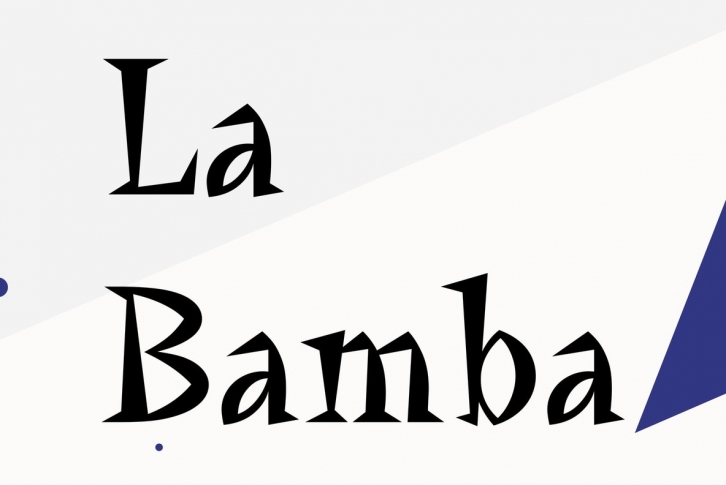
Current popular interest in 1750's design styles influenced noted British designer David Quay to create this exciting new typeface. Best described as a casual latin design because of its wedge-shaped serifs, La Bamba radiates a gay, light-hearted mood. A unique set of initialling capitals are included to enhance the 1750's appearance.